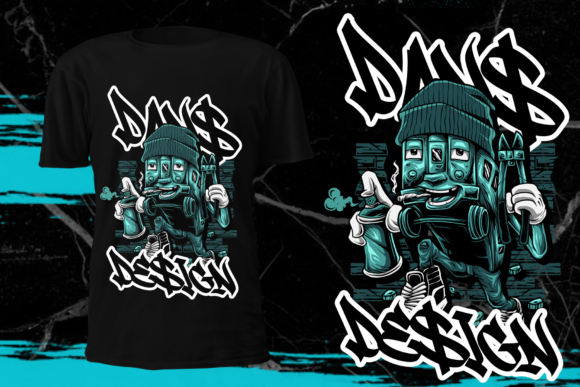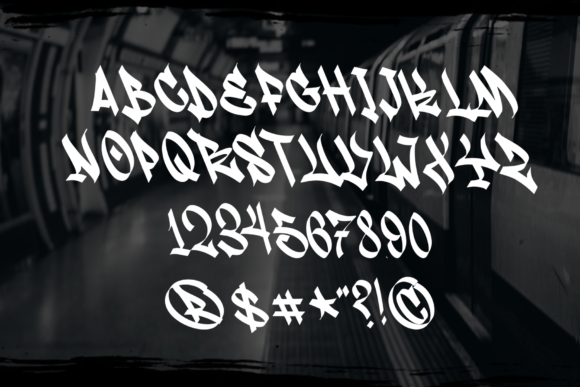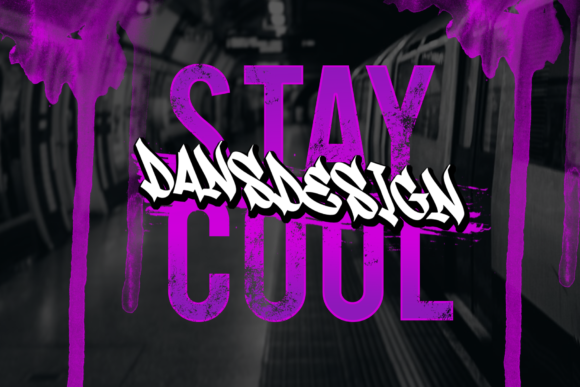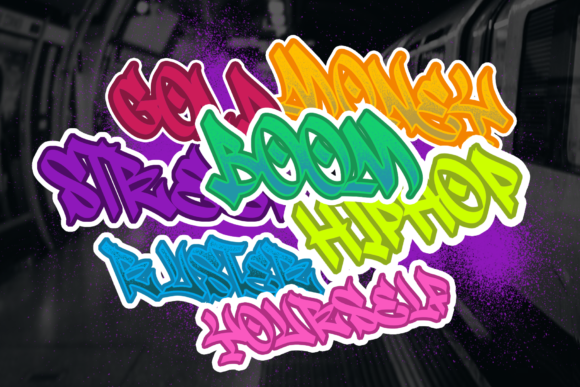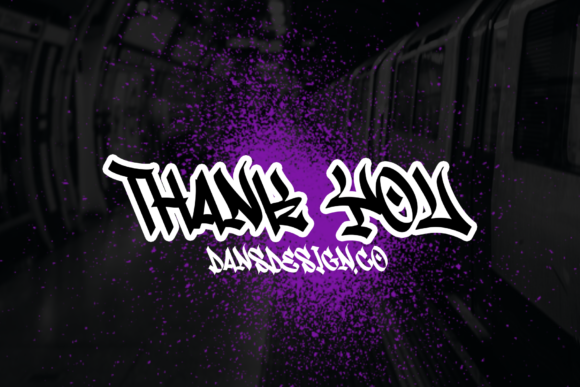
Dripster Font: Elevate Your Designs with a Graffiti-Themed Display Font
Dripster is an outstanding graffiti-themed display font that can add an adventurous and authentic feel to your next design idea. This font is perfect for designers and crafters looking to create unique and eye-catching designs that stand out from the crowd. In this article, we’ll explore the features and benefits of Dripster Font, and how it can be used to elevate your designs.
What is Dripster Font?
Dripster Font is a graffiti-themed display font that is designed to resemble the bold and colorful style of street art. The font features bold lines, vibrant colors, and a playful aesthetic that is reminiscent of graffiti art. With its unique and edgy design, Dripster Font is perfect for adding a touch of urban flair to your designs.
Key Features of Dripster Font
- Graffiti-themed design: Dripster Font features a bold and colorful design that is inspired by graffiti art.
- Display font: Dripster Font is a display font that is designed to be used for headlines, titles, and other large-format text.
- Unique and edgy: The font features a unique and edgy design that is perfect for adding a touch of urban flair to your designs.
- Playful aesthetic: Dripster Font has a playful aesthetic that is reminiscent of street art.
Benefits of Using Dripster Font
There are many benefits to using Dripster Font in your designs. Here are a few:
- Adds an adventurous feel: Dripster Font can add an adventurous and authentic feel to your designs, making them perfect for projects that require a bold and edgy aesthetic.
- Perfect for graffiti-inspired designs: The font is perfect for designs that require a graffiti-inspired aesthetic, such as posters, flyers, and brochures.
- Easy to read: Despite its bold and edgy design, Dripster Font is easy to read, making it perfect for use in headlines and titles.
- Versatile: Dripster Font can be used for a wide range of design projects, from advertising and marketing materials to packaging and branding.
- Use it for headlines and titles: Dripster Font is perfect for use in headlines and titles, where its bold and edgy design can really make an impact.
- Experiment with colors: Dripster Font comes in a range of colors, so don’t be afraid to experiment and find the perfect color for your design.
- Pair it with other fonts: Dripster Font can be paired with other fonts to create a unique and interesting design.
Design Ideas Using Dripster Font
Dripster Font can be used for a wide range of design projects. Here are a few ideas to get you started:
- Graffiti-inspired posters: Use Dripster Font to create bold and eye-catching posters that feature a graffiti-inspired aesthetic.
- Urban-themed branding: Use Dripster Font to create a bold and edgy brand identity that features an urban-themed aesthetic.
- Streetwear designs: Use Dripster Font to create bold and eye-catching designs for streetwear clothing and accessories.
Dripster Font is an outstanding graffiti-themed display font that can add an adventurous and authentic feel to your designs. With its bold and edgy design, Dripster Font is perfect for designers and crafters looking to create unique and eye-catching designs that stand out from the crowd. Whether you’re creating graffiti-inspired posters, urban-themed branding, or streetwear designs, Dripster Font is the perfect choice.